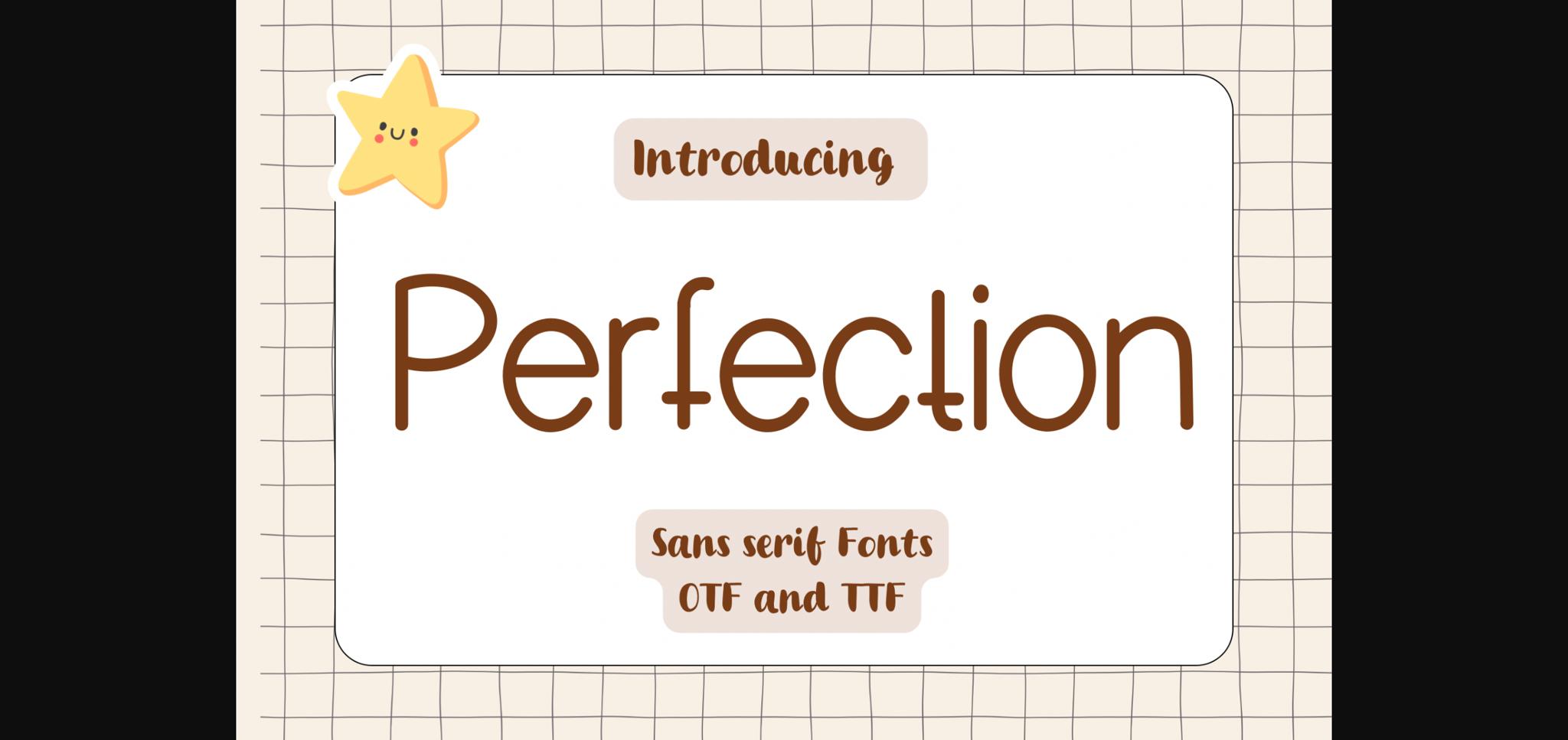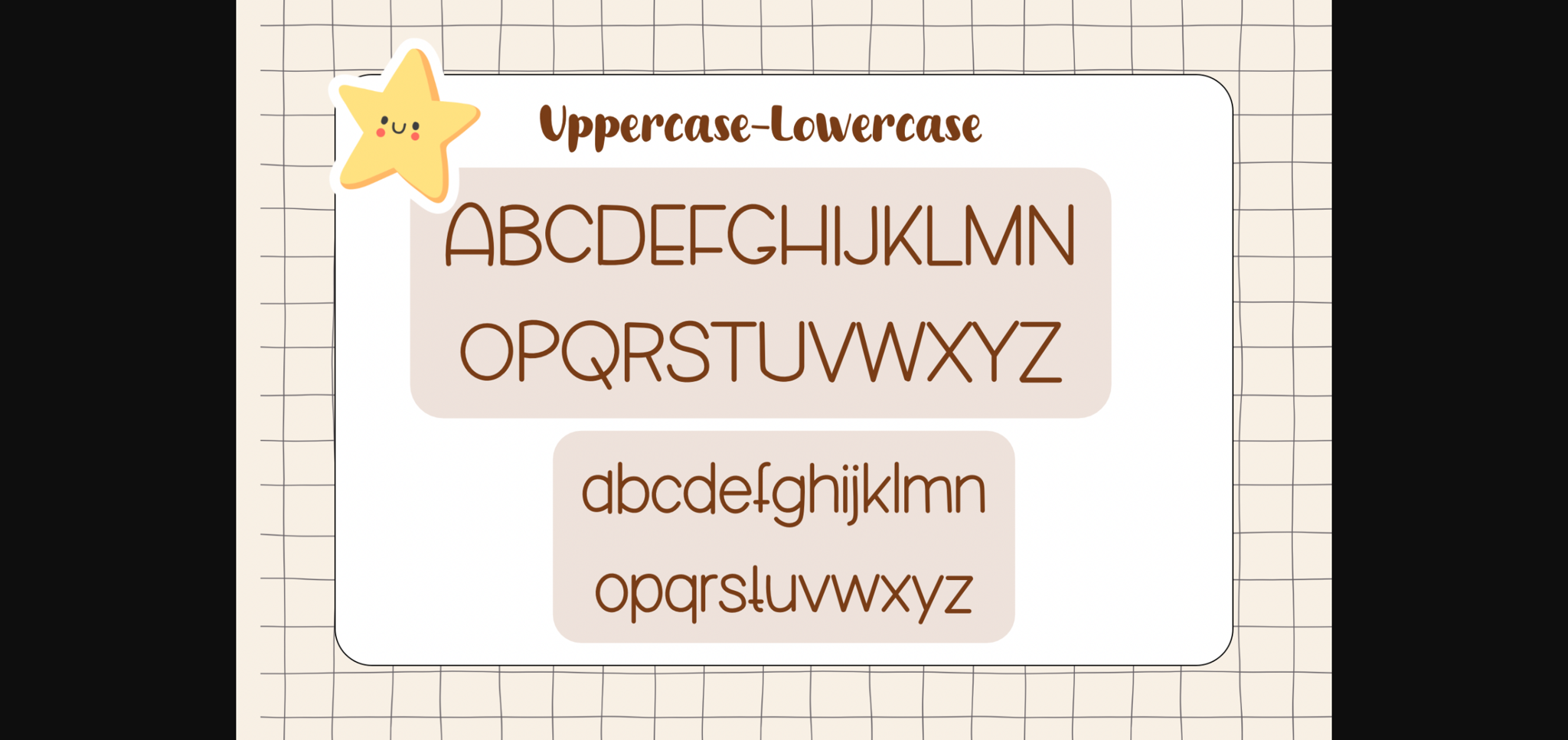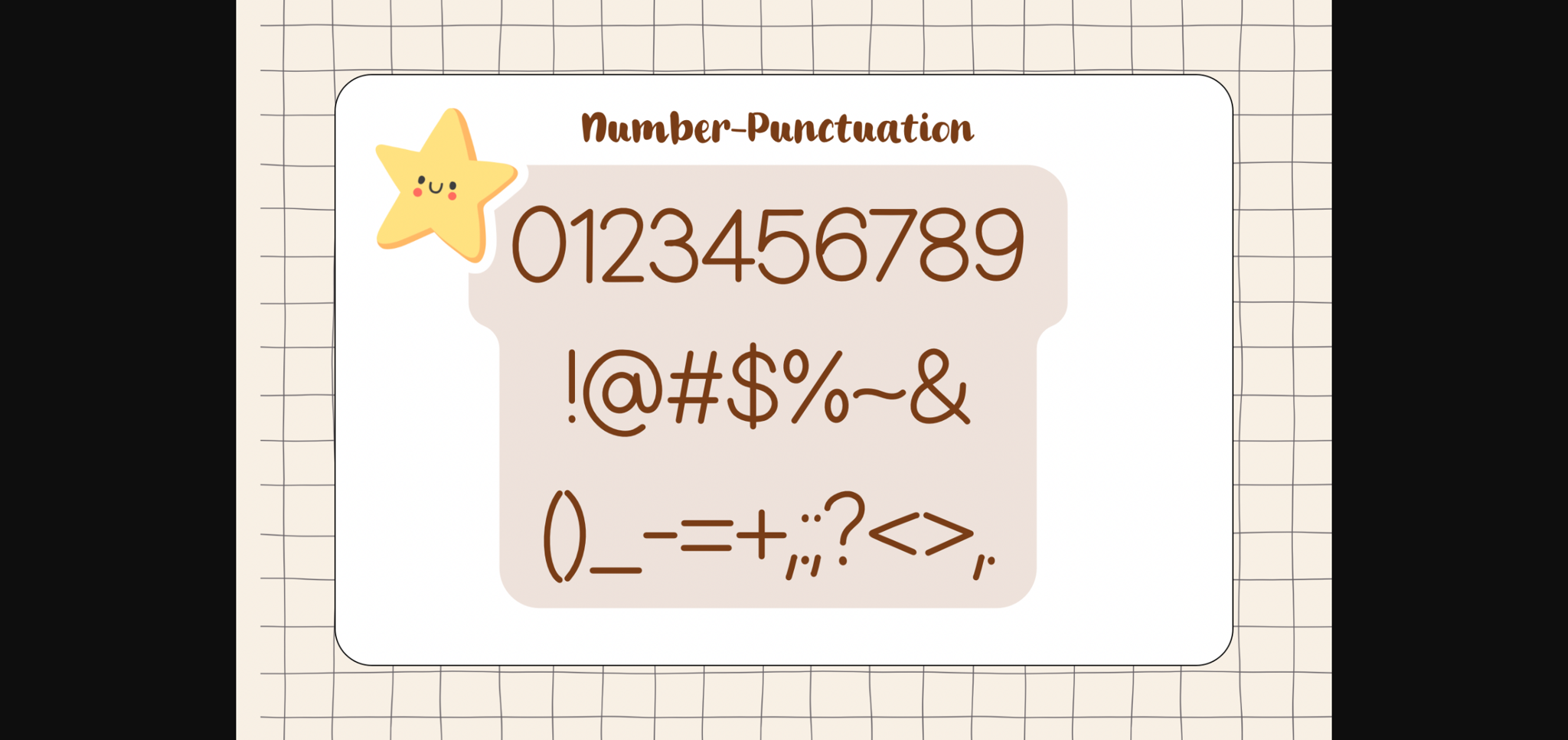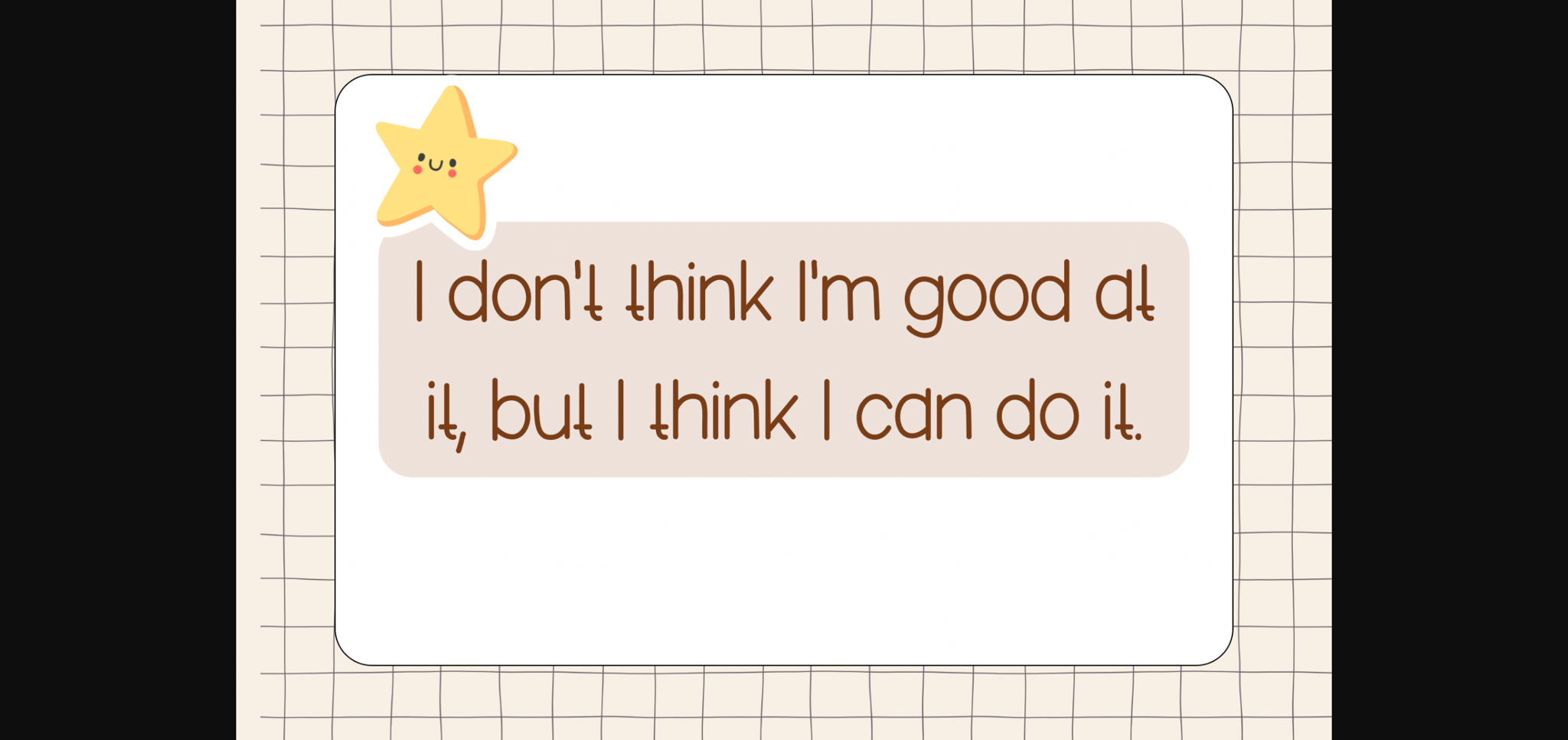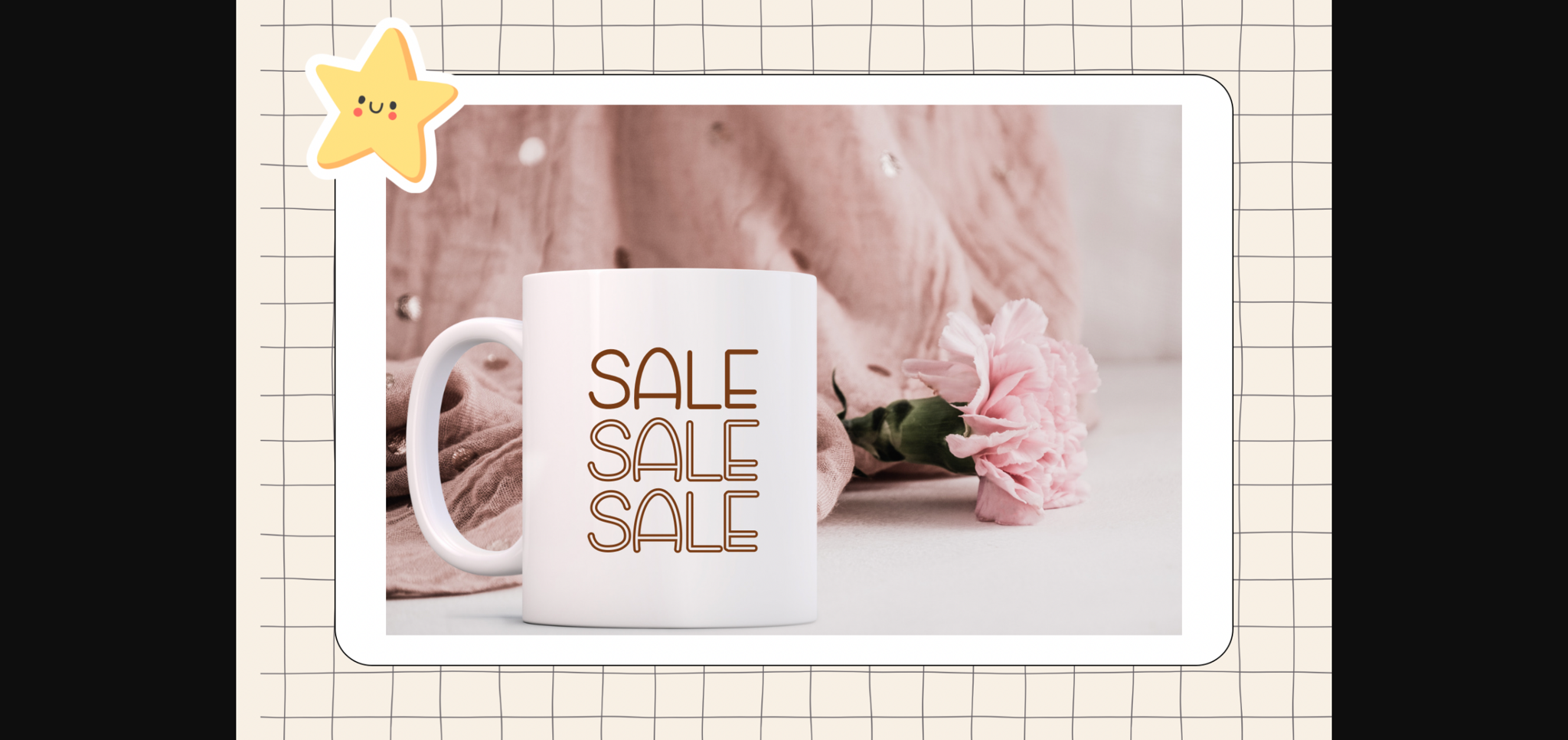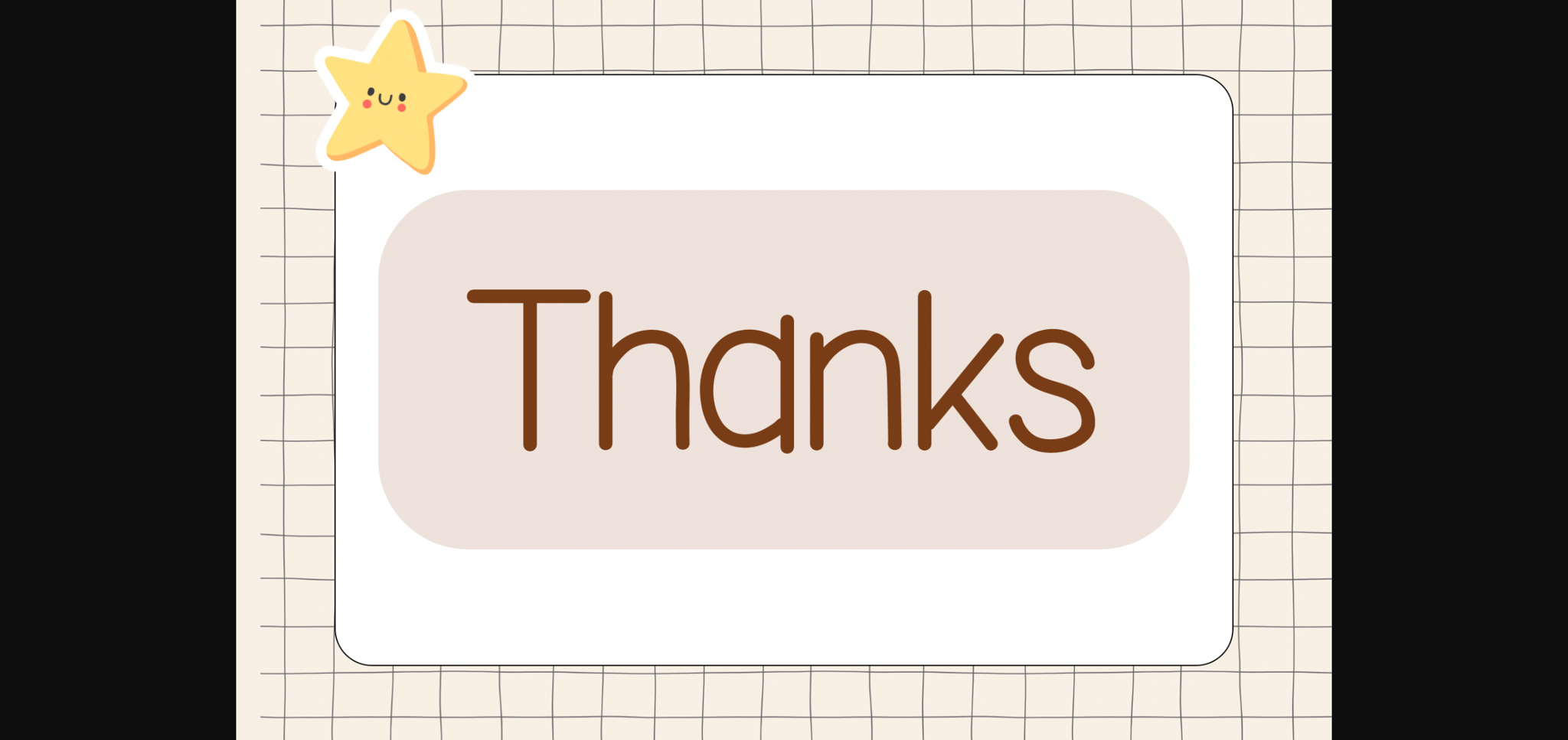
Perfection Font
About Perfection Font
Perfection is a clean and fresh sans-serif font that embodies precision and clarity. With minimalist letterforms and a contemporary aesthetic, it communicates a sense of modern elegance and sophistication. Ideal for projects requiring a sleek and refined appearance, Perfection elevates your designs with its crisp and timeless appeal.